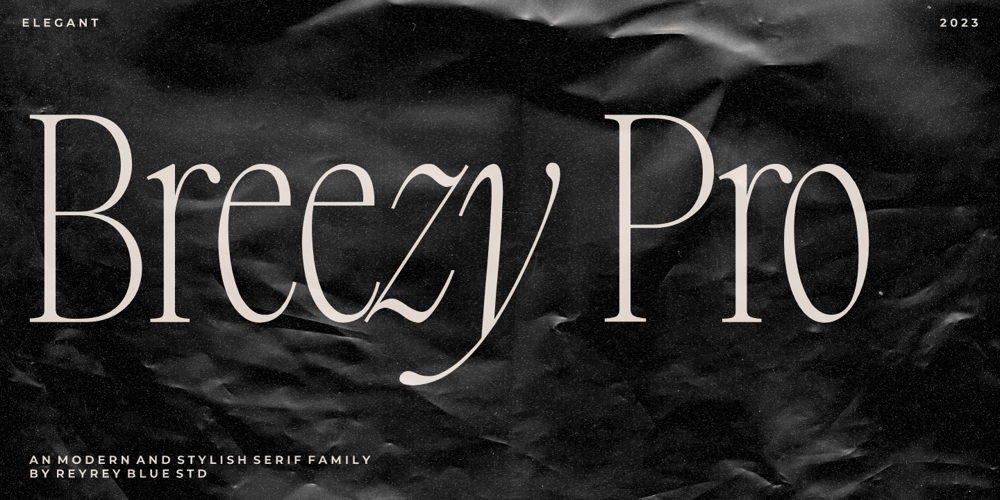
Breezy Pro
Breezy Pro font
Breezy Pro Font Family was designed by Risca Anitawati and published by Reyrey Blue Std. Breezy Pro contains 2 styles and family package options. Introducing, Breezy Pro Typeface. A classical typeface with a complementary italic version. It’s elegant, modern, and stylish. Mix and match them to create eye-catching effects and make every word a masterpiece.Breezy Pro is perfectly suited for fashion and magazine design, Inspirational quote designs, logo designs, simple and classy Logos, web font, branding, product packaging, and much more. This font is PUA-encoded, which means you can easily access all of the glyphs!Features : All Uppercase and LowercaseNumber & SymbolSupported LanguagesLigaturesPUA EncodedHope you enjoy our font!